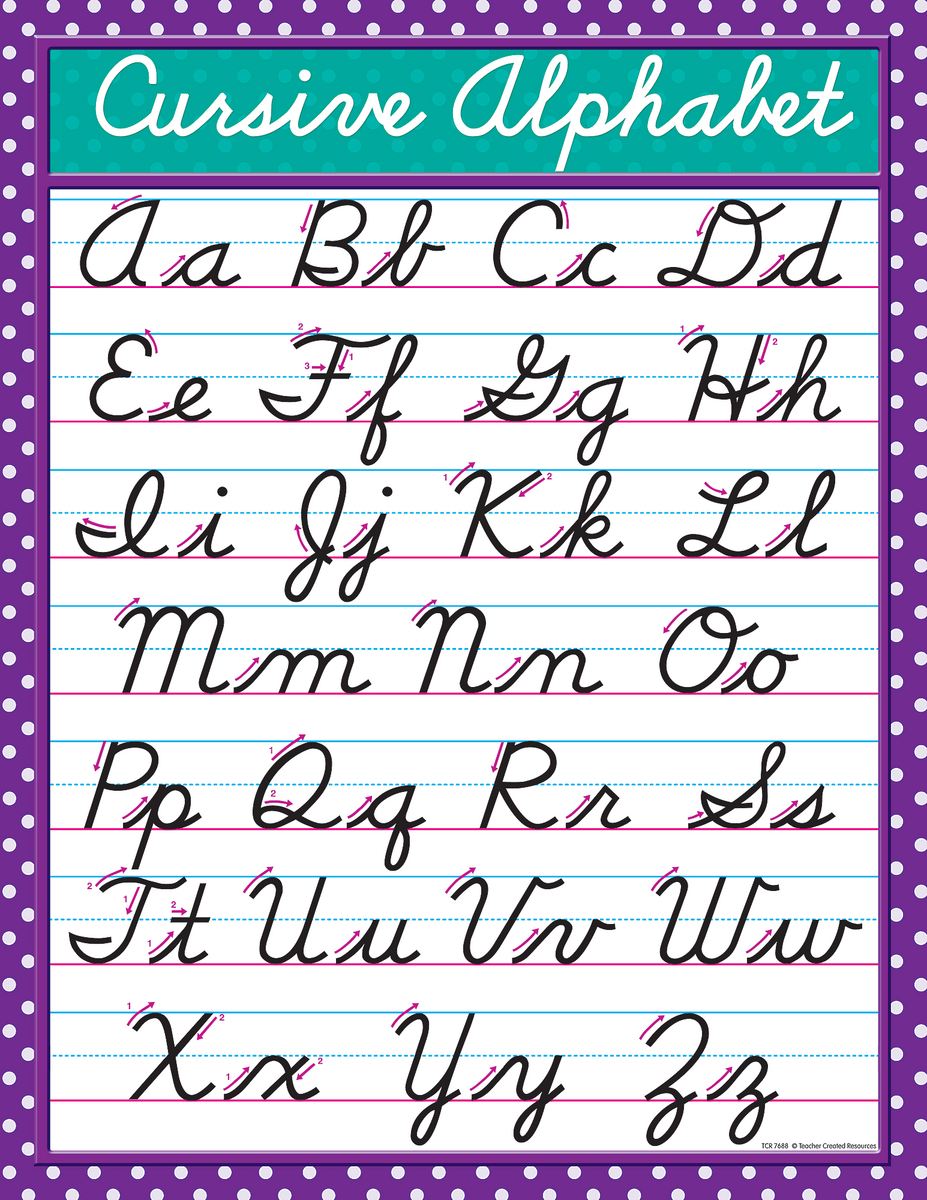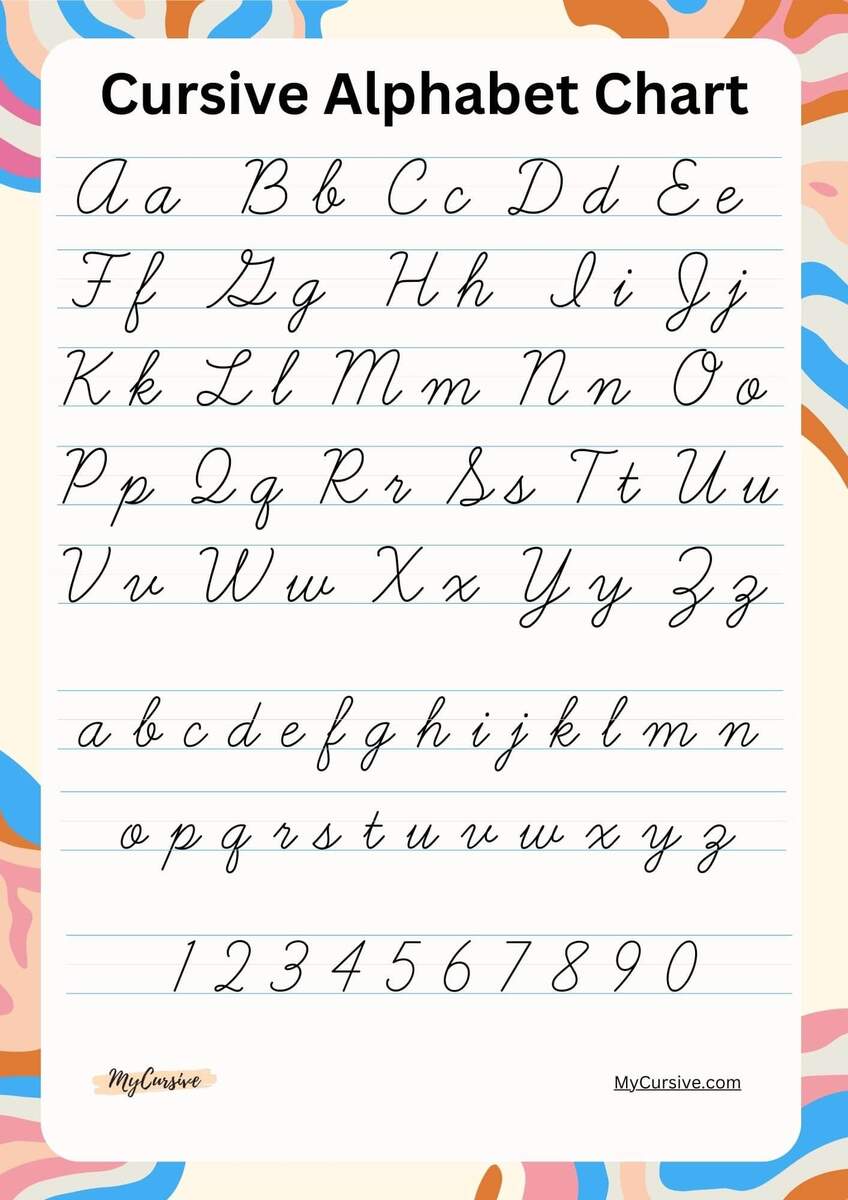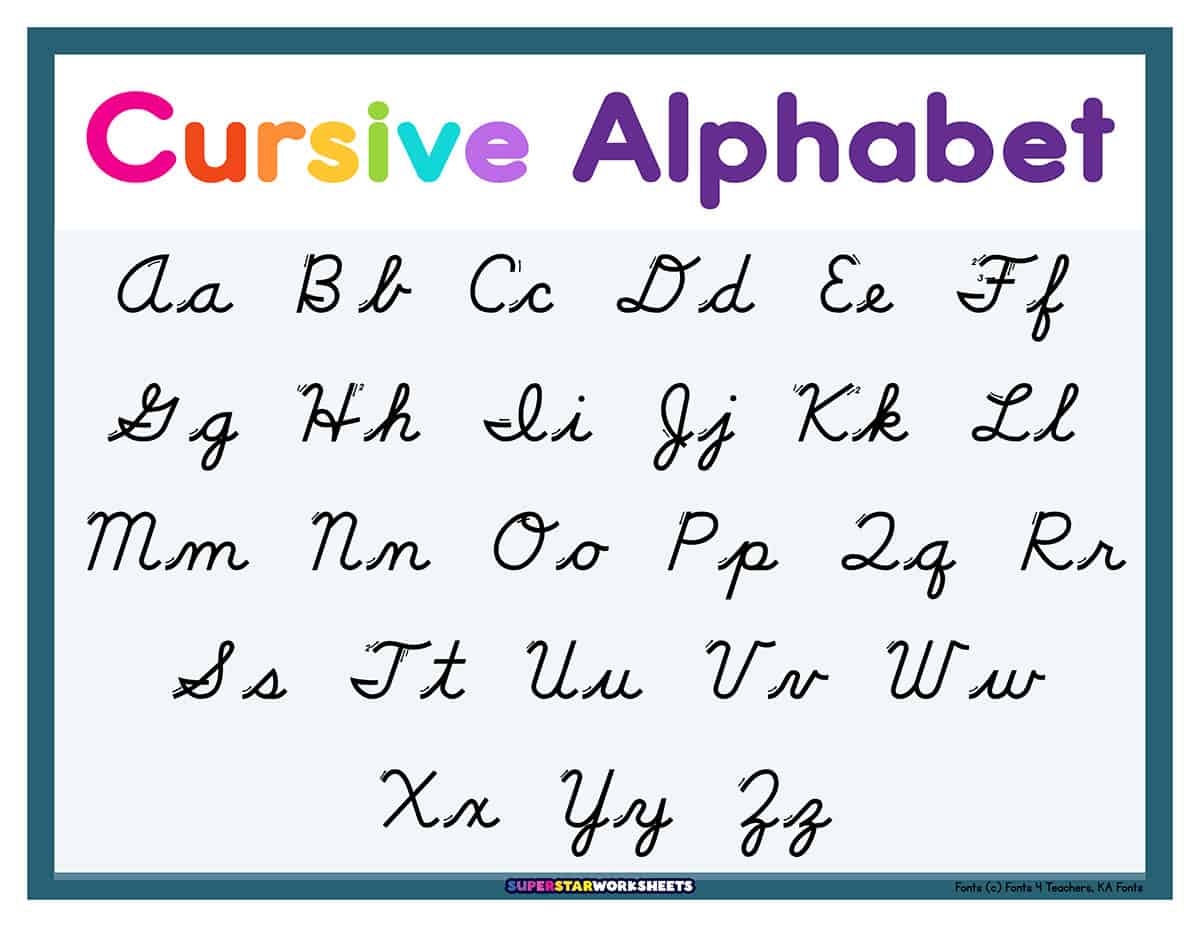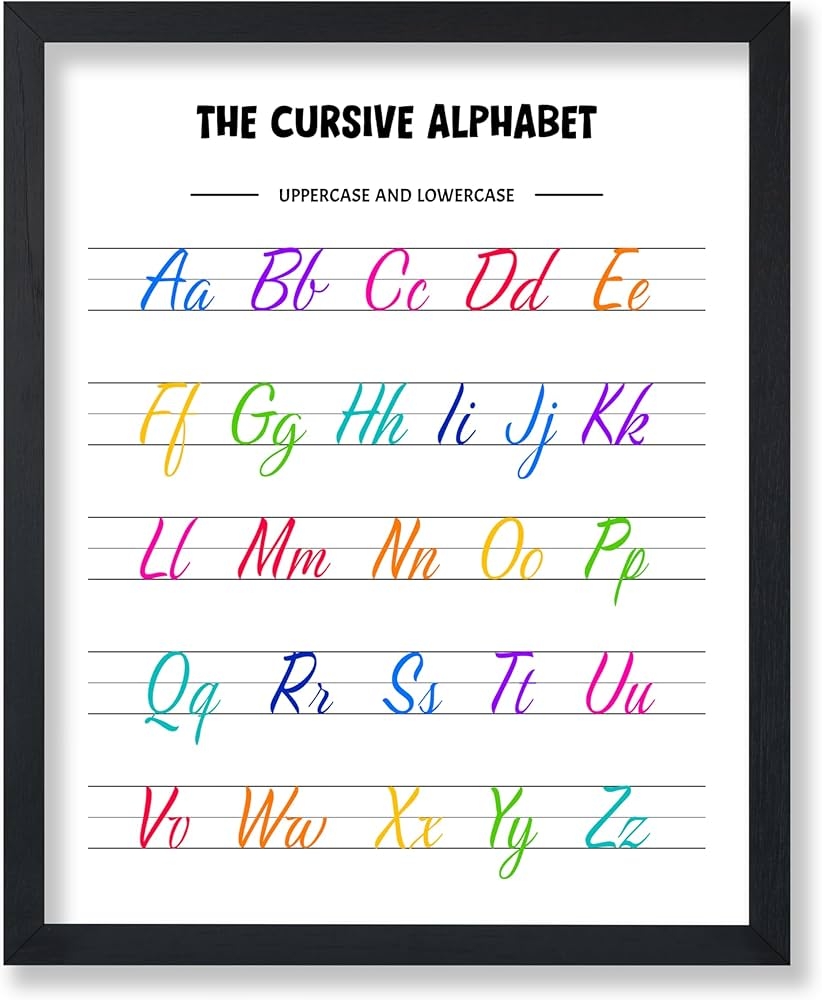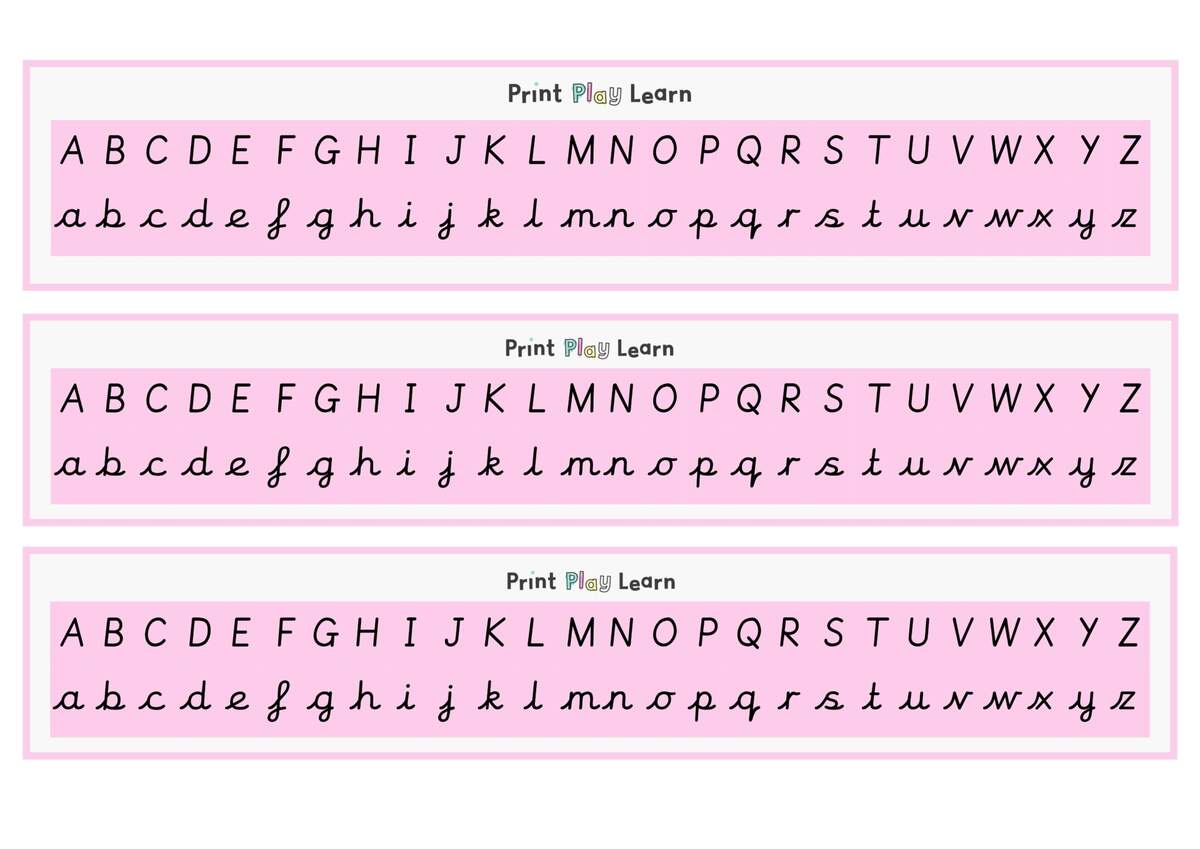
Cursive Font Alphabet Chart
Cursive font alphabet chart is a fundamental tool for anyone looking to learn or improve their cursive writing skills. The chart provides a visual representation of the cursive alphabet, showcasing the correct formation and connection of letters. With the rise of digital communication, cursive writing has seen a decline in recent years, but its importance in everyday life cannot be overstated. From signing important documents to writing heartfelt letters, cursive writing is an essential skill that can add a touch of elegance and sophistication to any piece of writing.
The cursive font alphabet chart is not just a useful tool for students, but also for anyone looking to improve their handwriting or add a creative touch to their writing. The chart can be used to practice writing individual letters, words, or even entire sentences. By practicing regularly, individuals can develop muscle memory and improve their overall handwriting skills. Moreover, the cursive font alphabet chart can also be used as a decorative element in design projects, adding a touch of classic elegance to any document or presentation.
Introduction to Cursive Font
The cursive font alphabet chart is a great introduction to the world of cursive writing. It provides a clear and concise visual representation of the cursive alphabet, making it easy for beginners to learn and understand. The chart can be used to teach children the basics of cursive writing, or as a refresher for adults looking to improve their skills. By starting with the basics, individuals can build a strong foundation in cursive writing and develop a beautiful, flowing script.
Benefits of Using Cursive Font
One of the biggest benefits of using cursive font is that it can improve handwriting skills and overall literacy. Studies have shown that writing in cursive can improve cognitive skills, such as memory and retention, and can even help individuals with dyslexia or other learning disabilities. Additionally, cursive writing can add a touch of personality and flair to any piece of writing, making it a great way to express oneself creatively. By incorporating cursive font into daily writing practices, individuals can experience these benefits firsthand and develop a unique and elegant writing style.
Tips for Mastering Cursive Font
To master cursive font, it’s essential to practice regularly and start with the basics. Begin by practicing individual letters, focusing on correct formation and connection. As you become more comfortable, move on to writing words and sentences, paying attention to spacing and flow. It’s also important to choose the right tools, such as a fountain pen or a high-quality marker, to help you achieve the desired level of elegance and sophistication. With consistent practice and patience, anyone can master the art of cursive writing and develop a beautiful, flowing script.
In conclusion, the cursive font alphabet chart is a valuable resource for anyone looking to learn or improve their cursive writing skills. By providing a clear and concise visual representation of the cursive alphabet, the chart makes it easy for individuals to learn and understand the basics of cursive writing. Whether you’re a student, a designer, or simply someone looking to add a touch of elegance to your writing, the cursive font alphabet chart is an essential tool that can help you achieve your goals and develop a beautiful, flowing script.